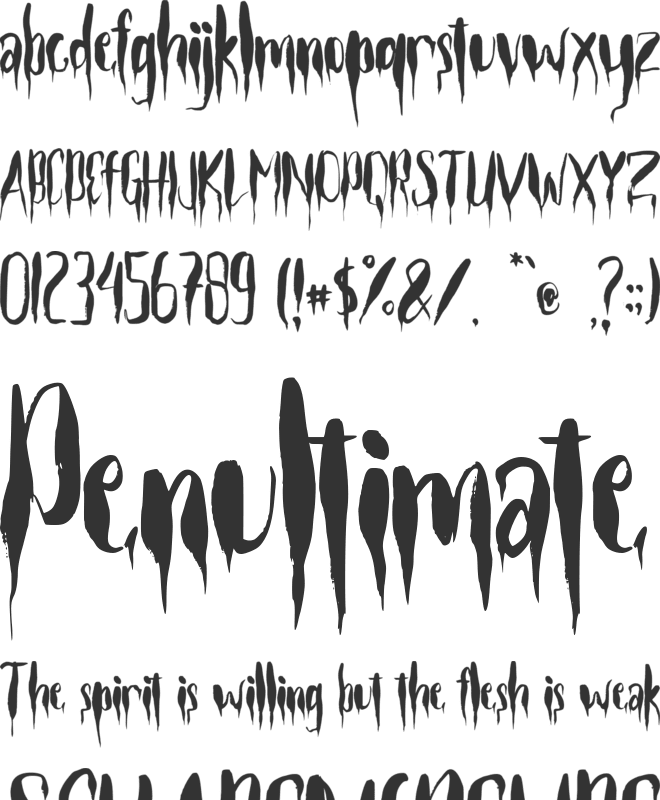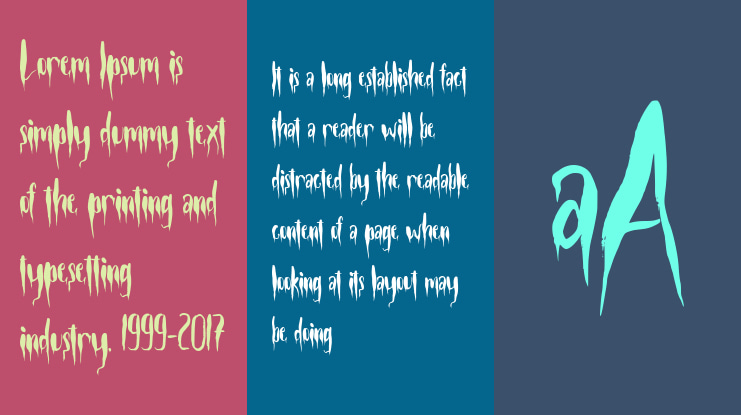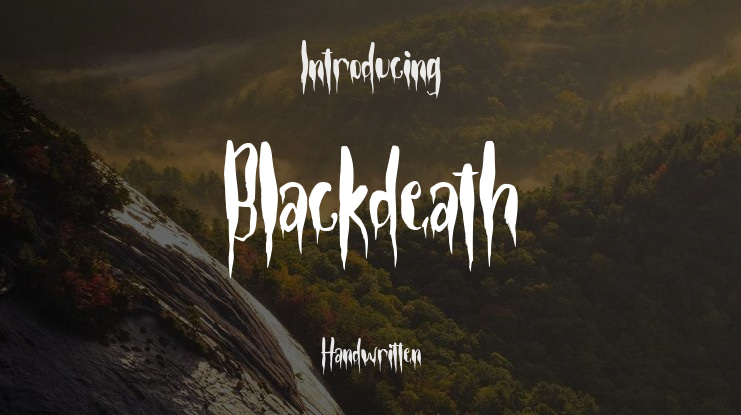
Blackdeath Font
Blackdeath is a horror display font inspired by dripping blood and spooky Halloween vibes. Its sharp strokes and terrifying liquid style make every letter look alive with fear. This font is perfect for Halloween posters, haunted party invitations, creepy quotes, horror movie titles, and any design that needs a chilling touch. With Blackdeath, your project will instantly stand out and bring a truly scary atmosphere.